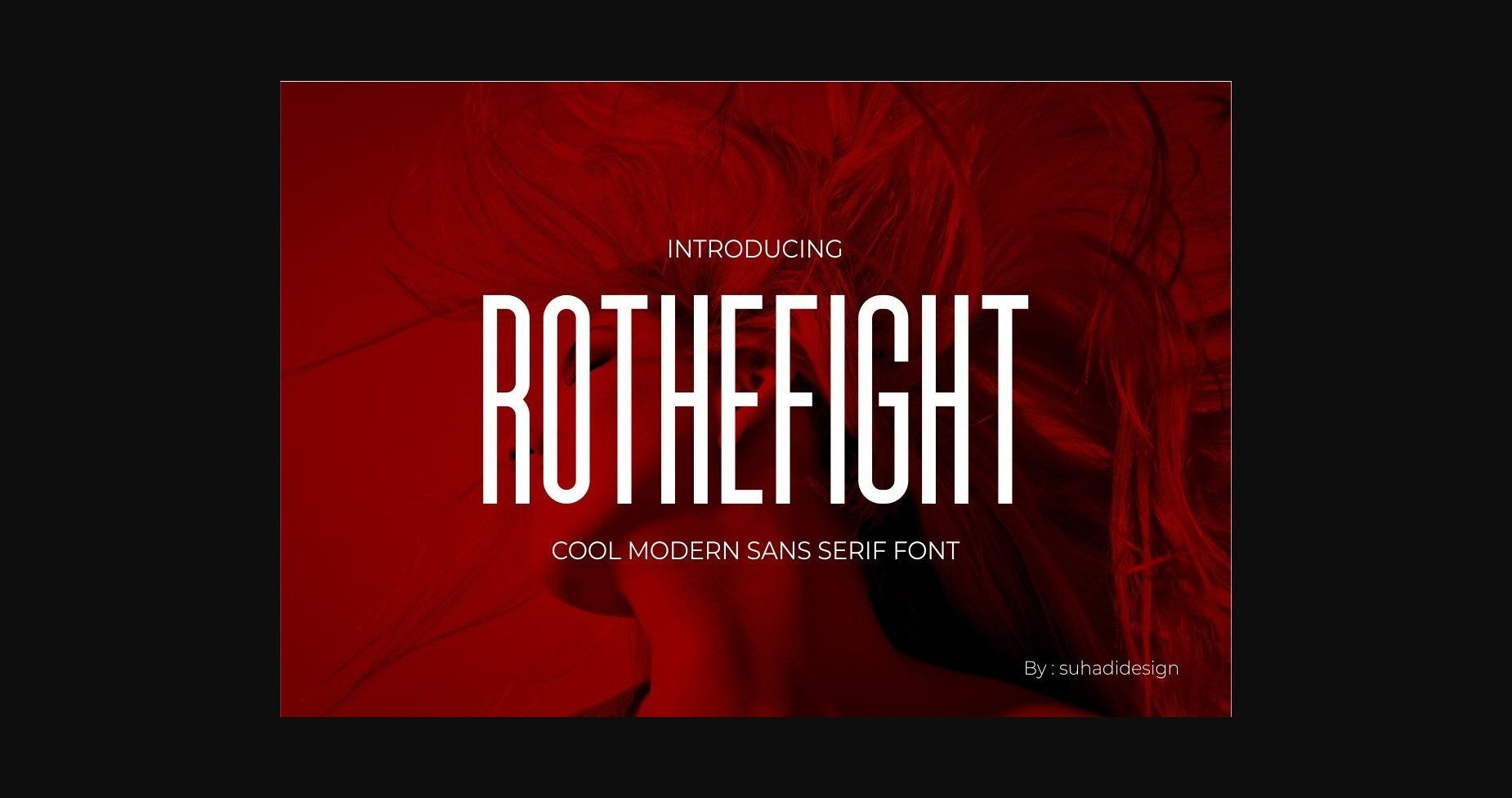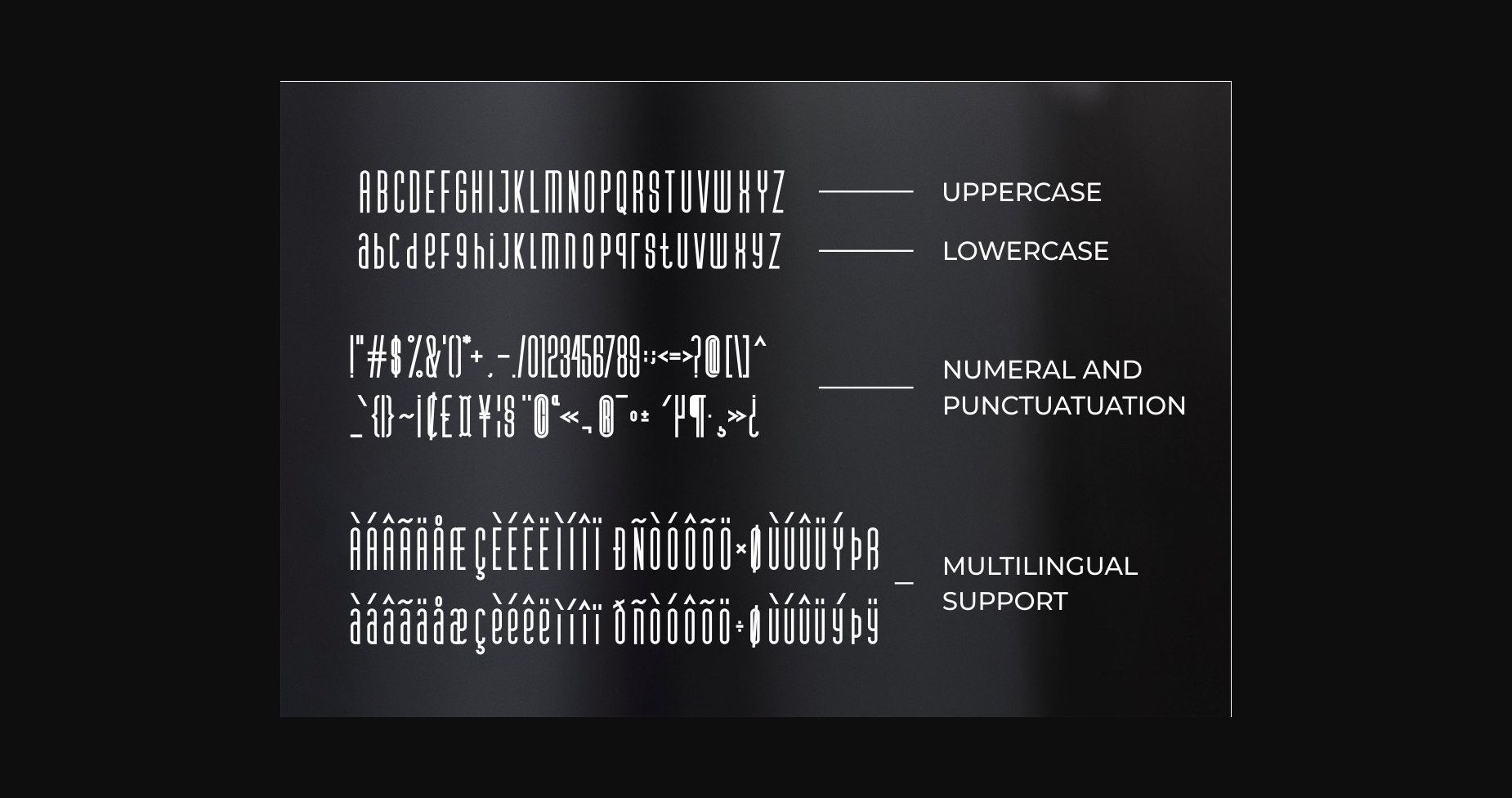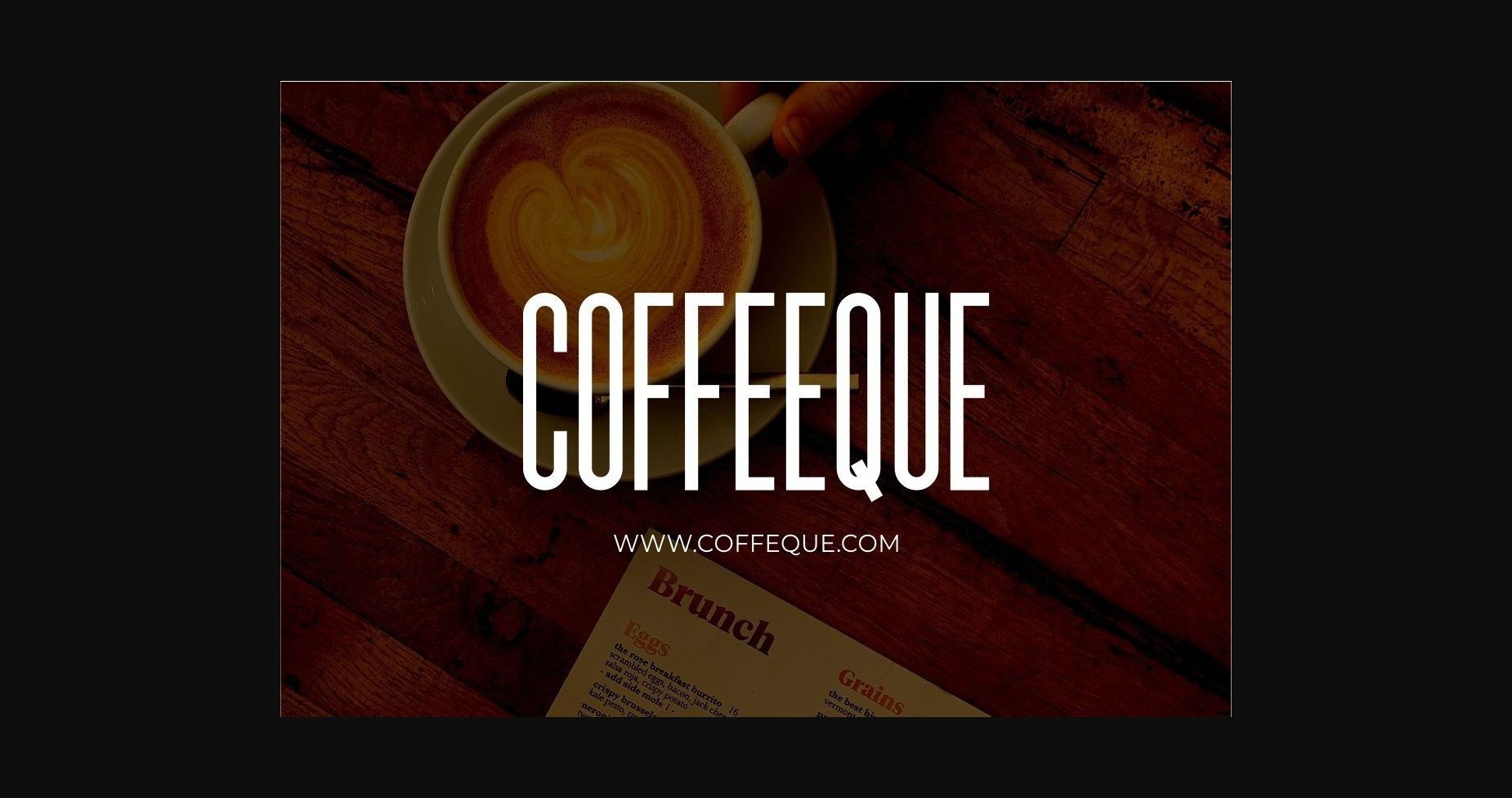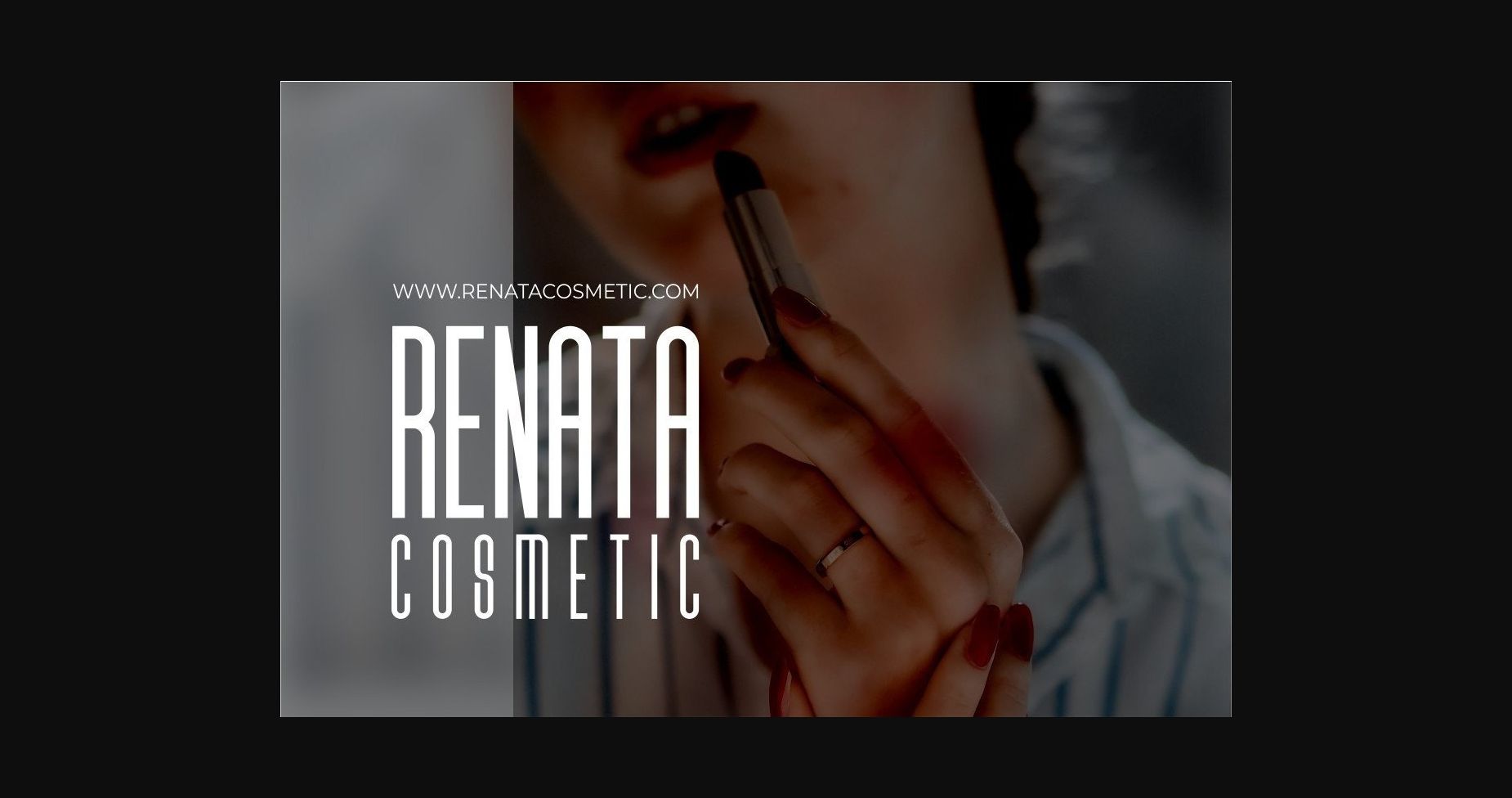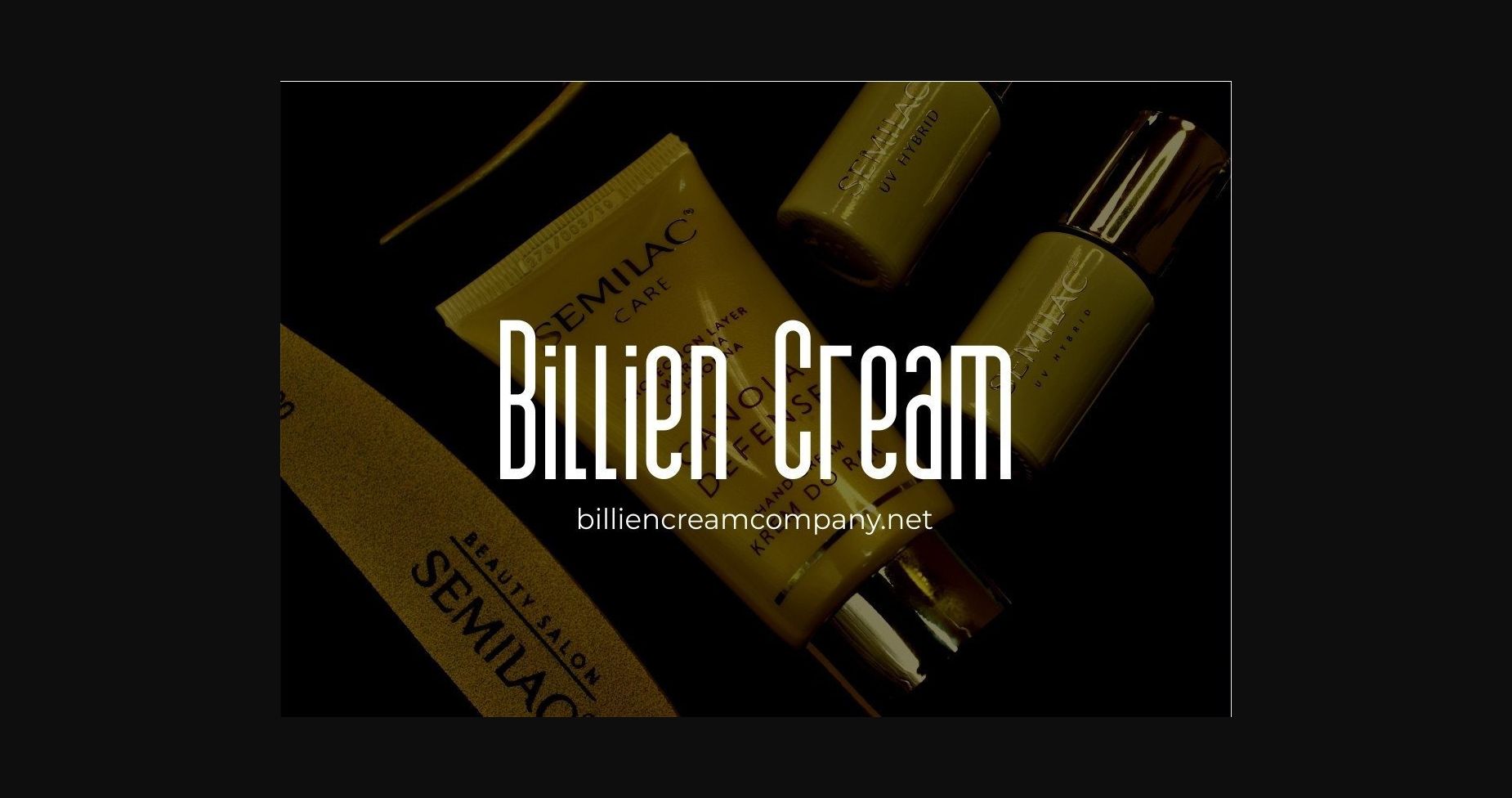
About Rothefight Font
The Rothefight is a modern sans serif font that is very popular and comes in a modern style hoping to become a favorite with the market. Rothefight Font is a great choice for brands, company names, fashion, logos, food menus, brand names, branding, brands, quotes, album covers, and other projects. Rothefight fonts are here to take your designs to the next level.